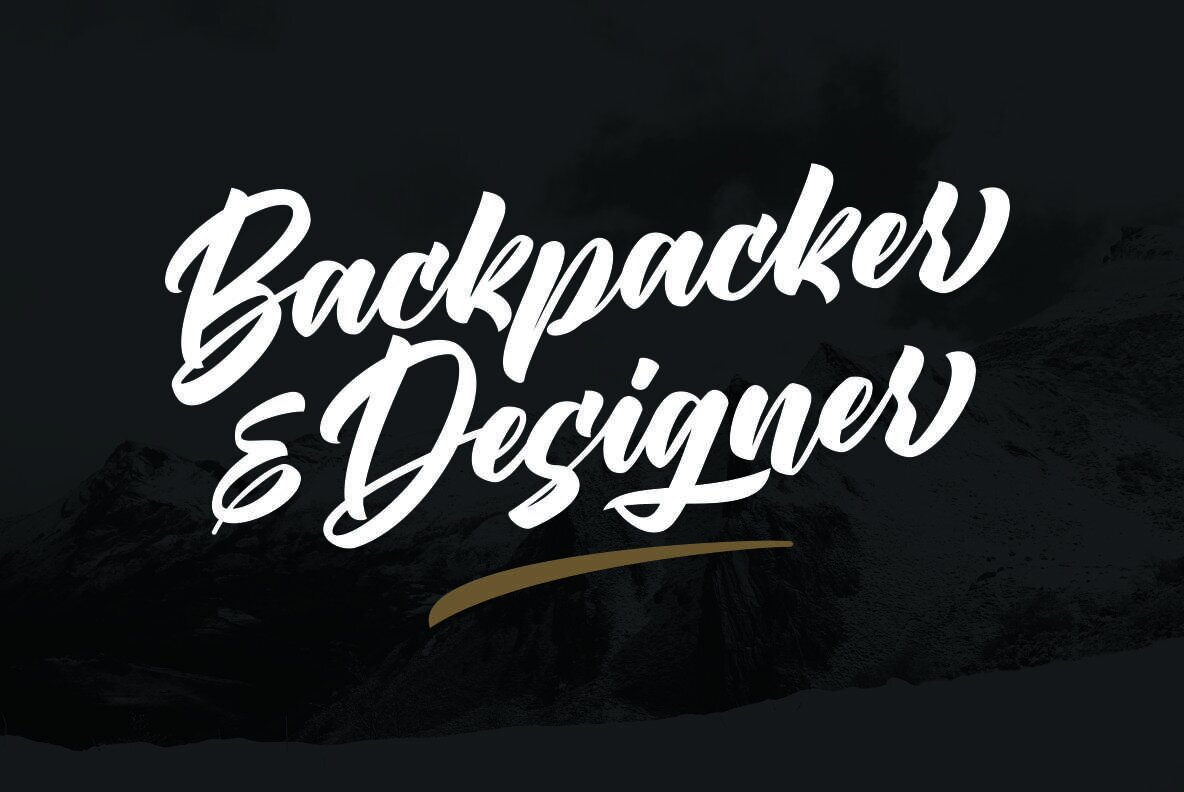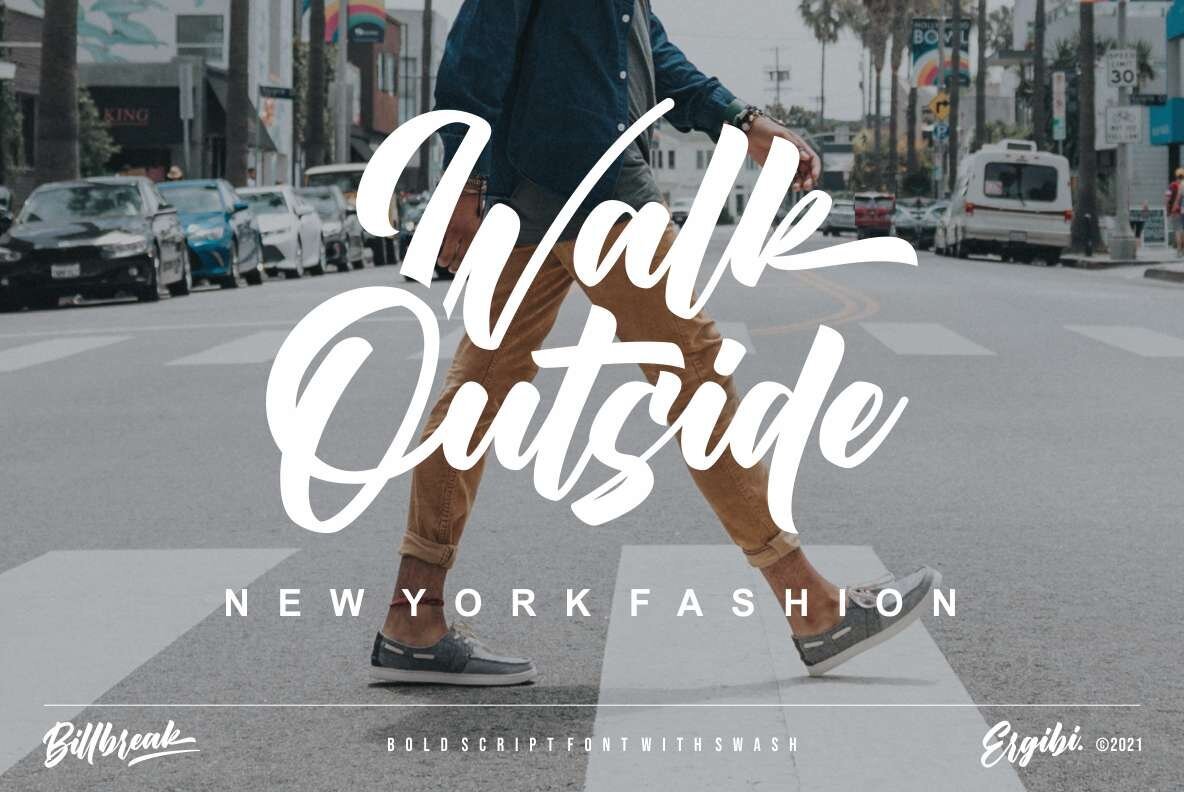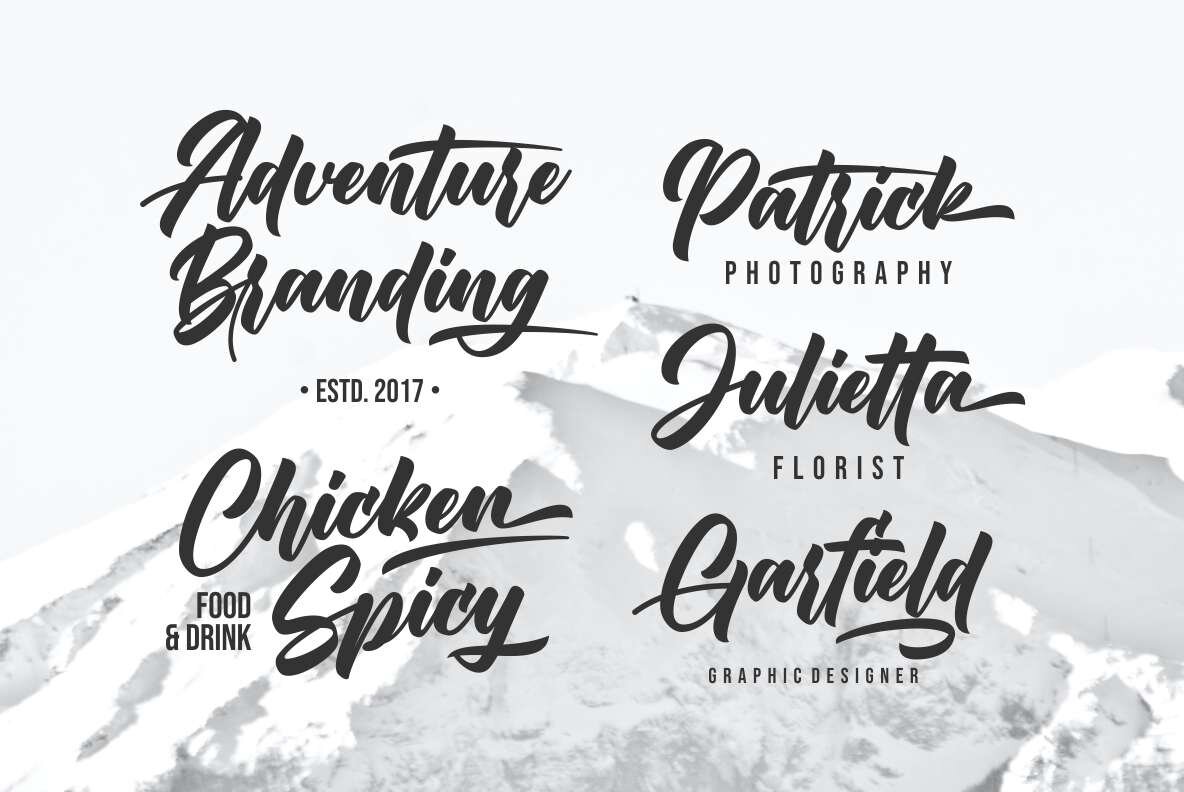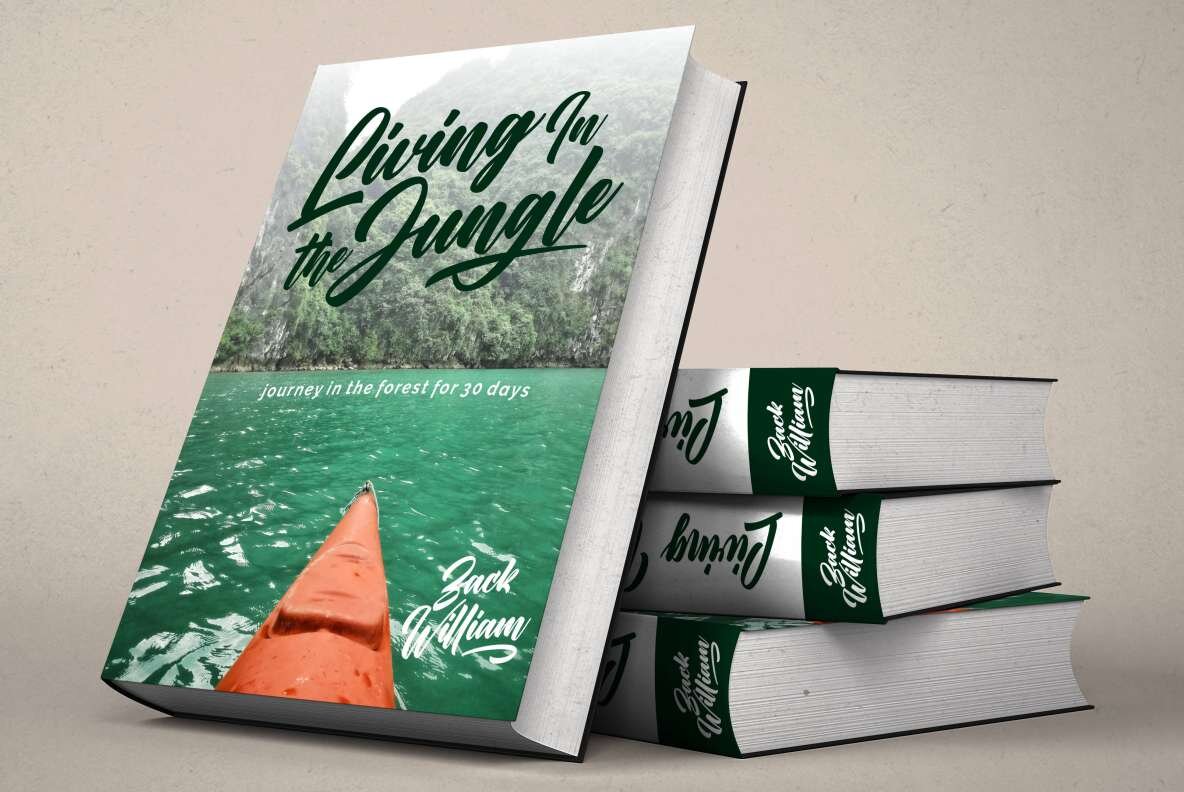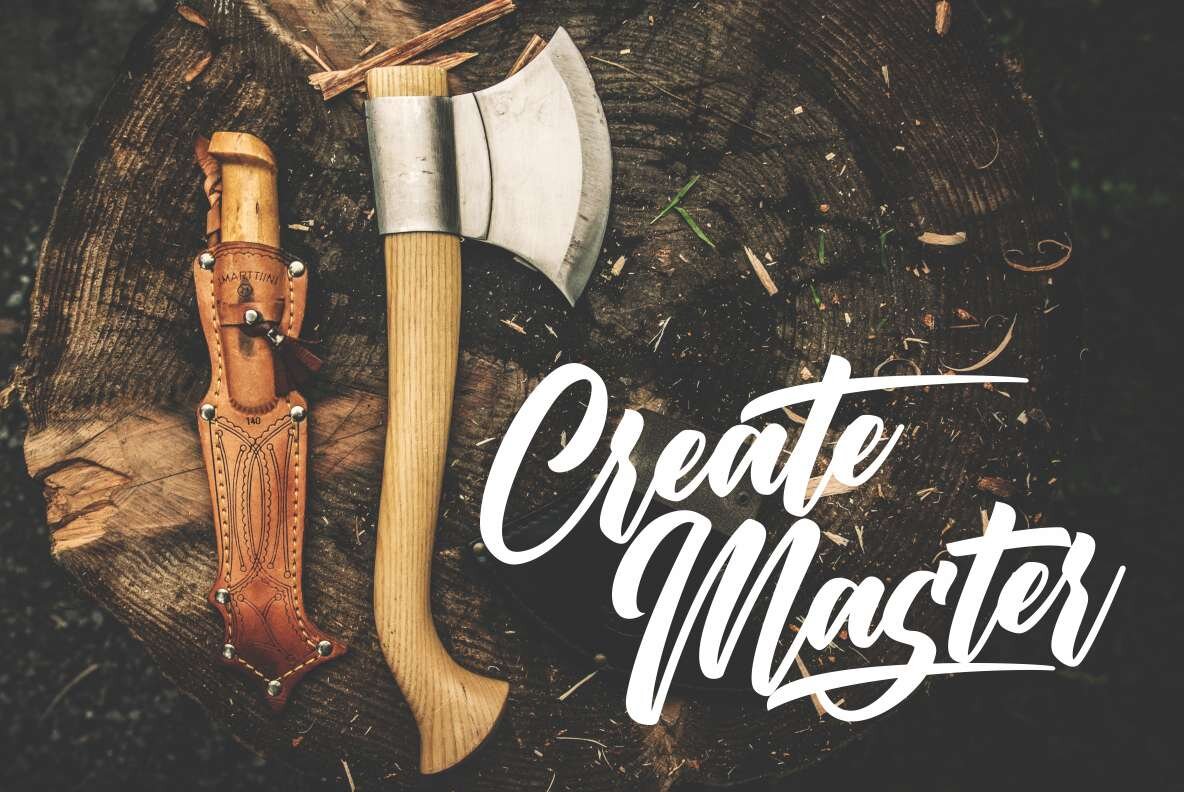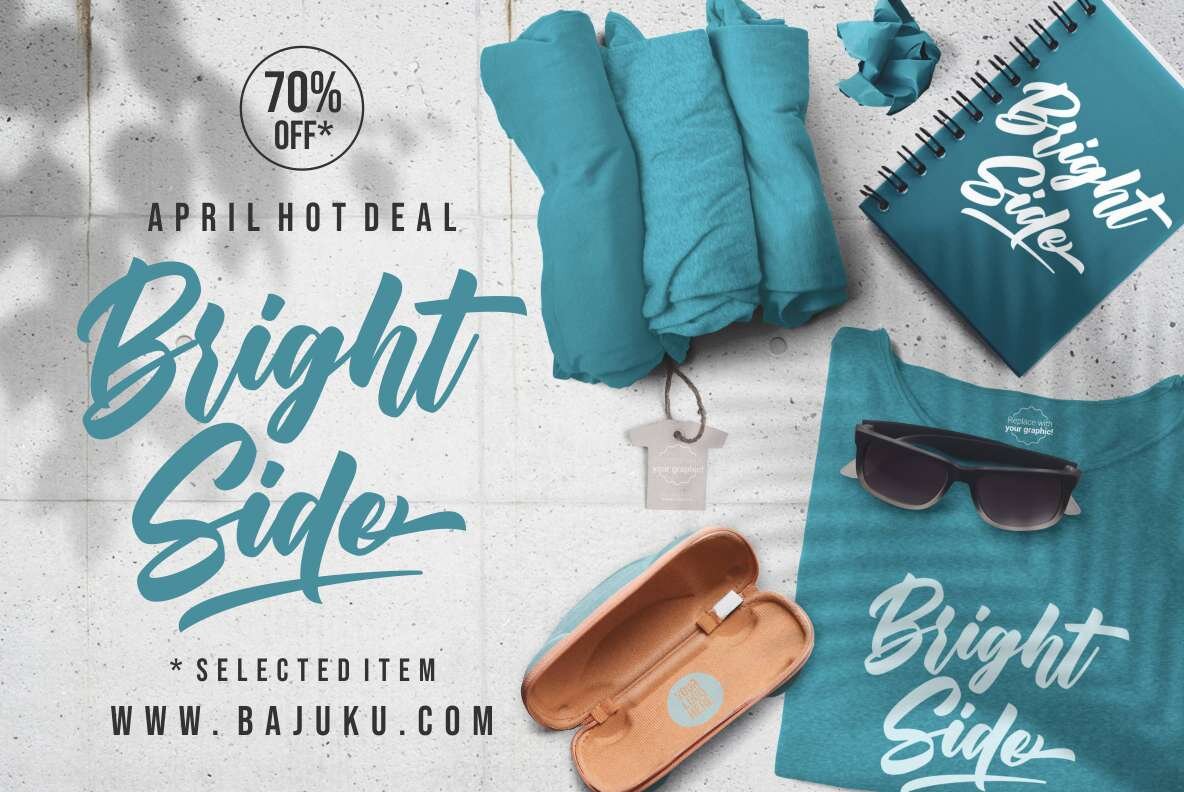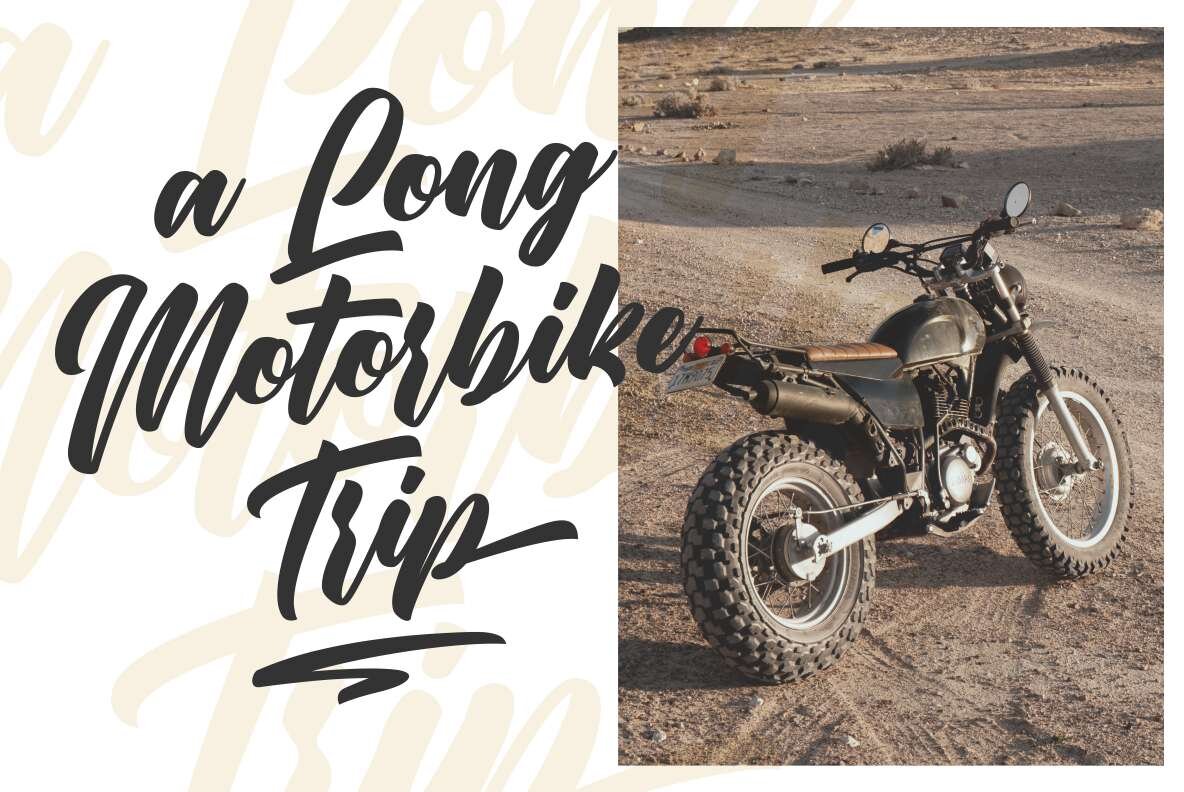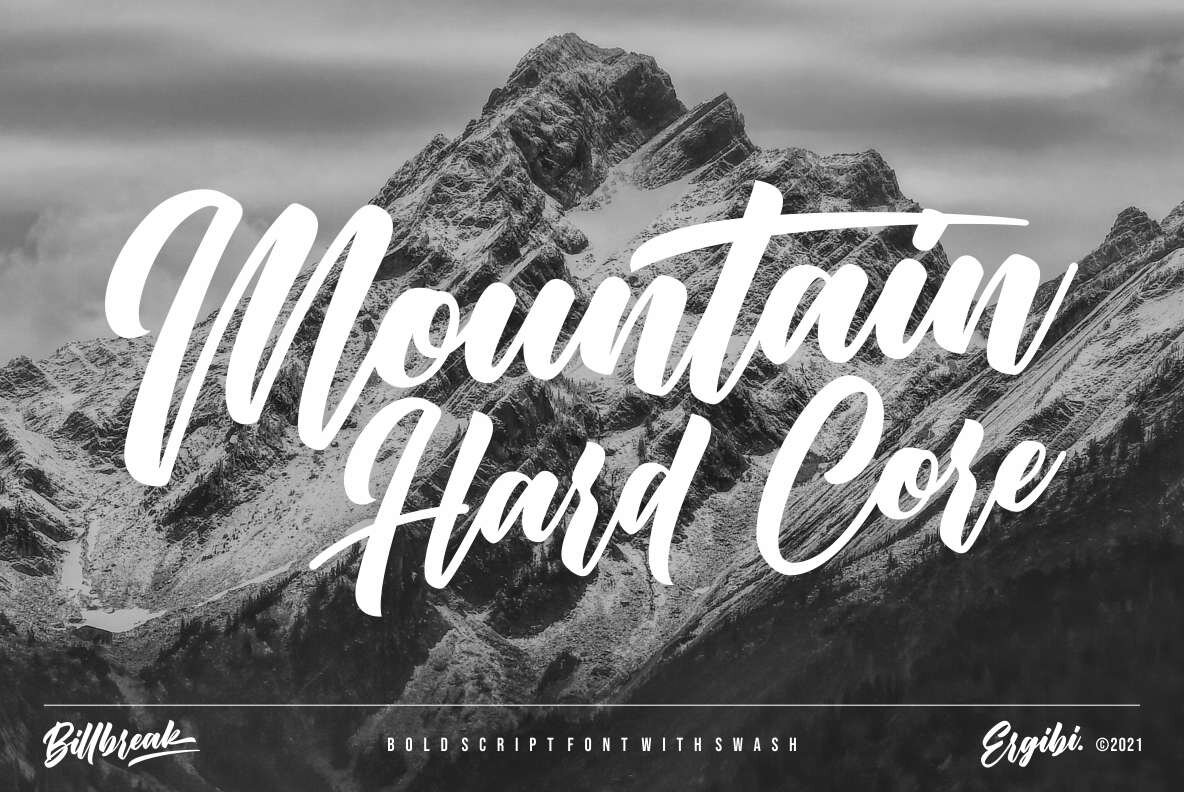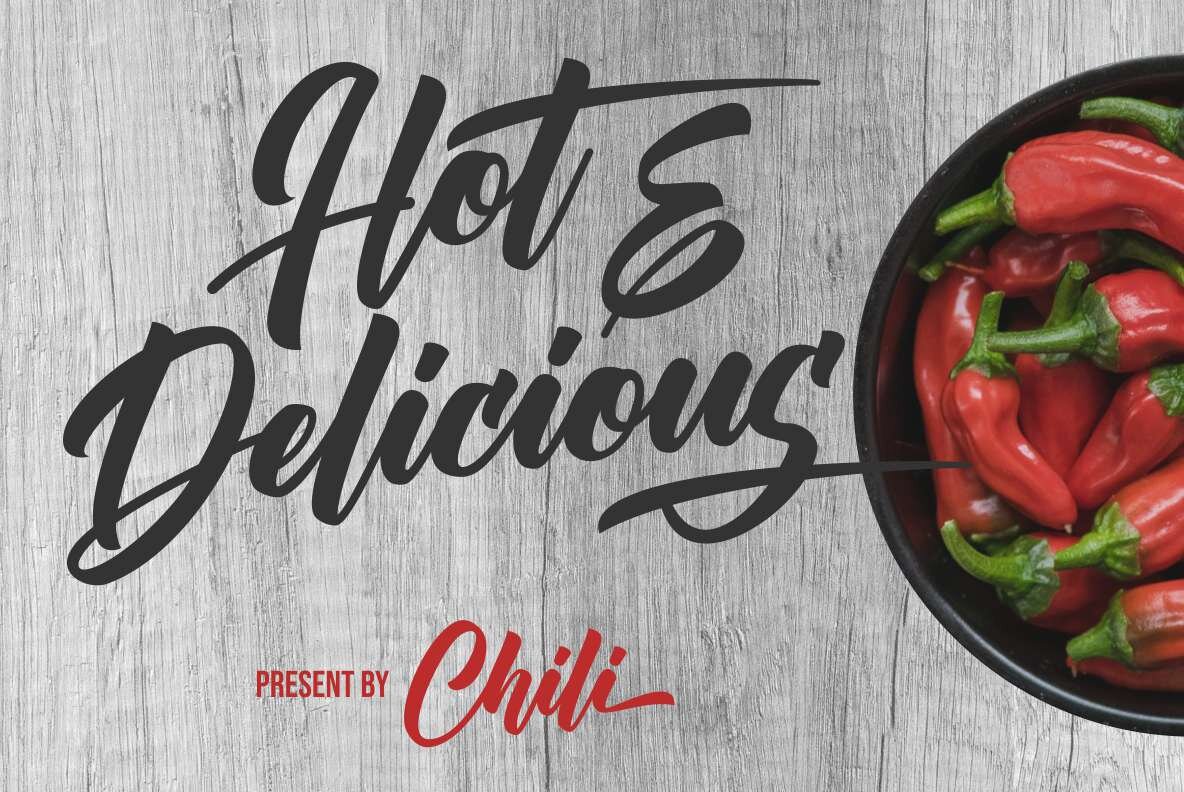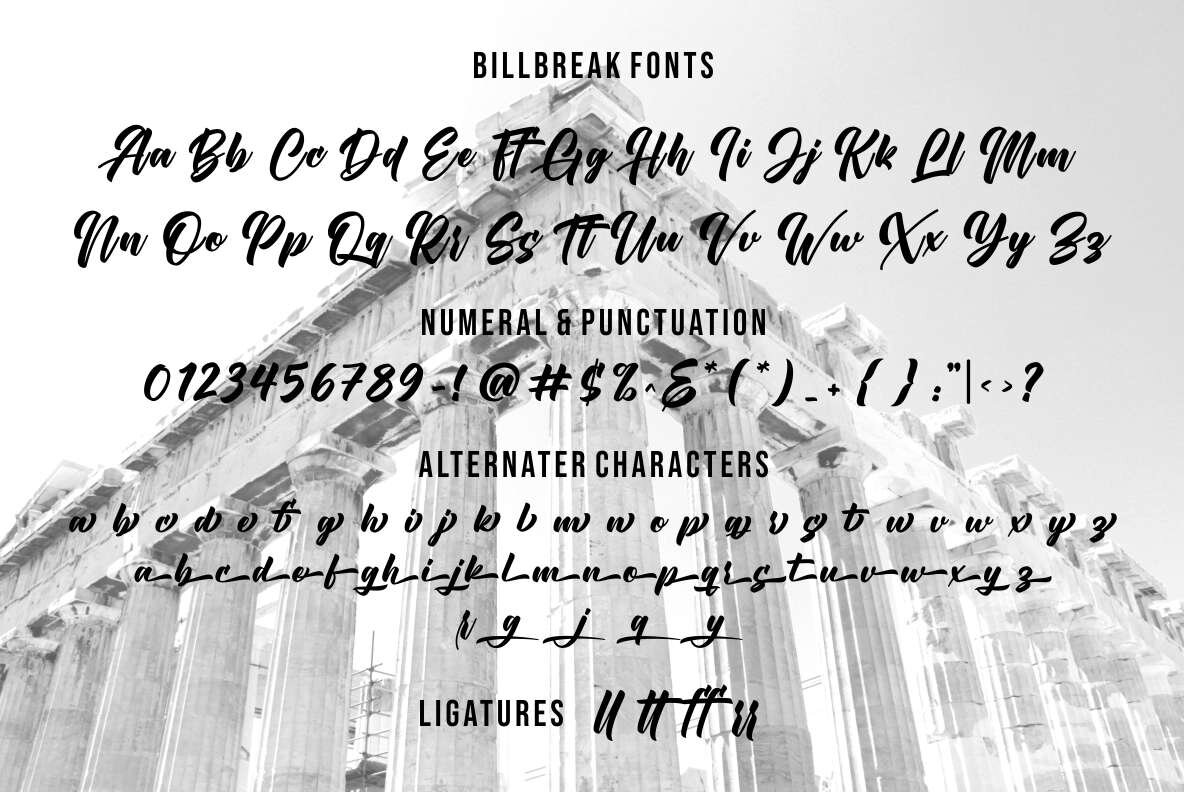
Billbreak Font
Billbreak Regular
Billbreak captures the edgy essence of urban fashion with its bold script style, making it an exceptional choice for a wide variety of creative projects. This font seamlessly integrates into logos, badges, apparel, product packaging, headlines, posters, or any design needing a touch of calligraphy. Its dynamic nature offers designers the ability to infuse presence and individuality into their work.Billbreak: Bold Script for Urban Fashion Design
Billbreak distills the spirit of contemporary street style, providing a bold and adaptable aesthetic for designers looking to make their mark.